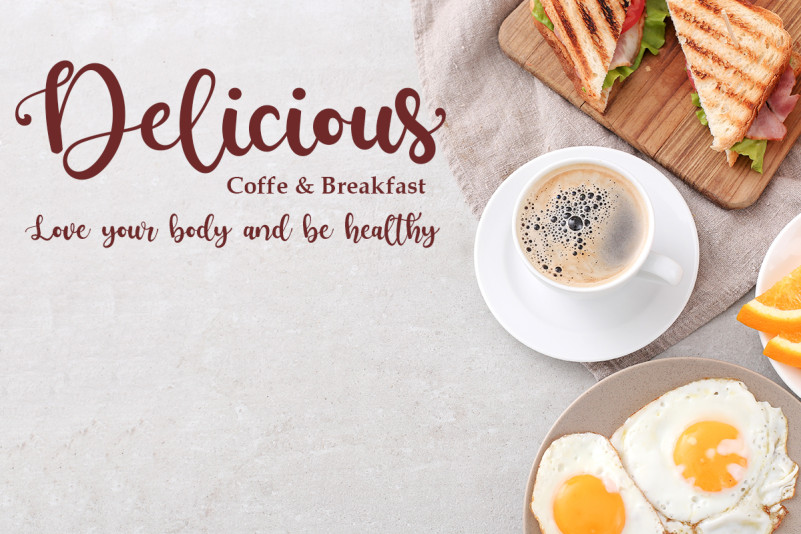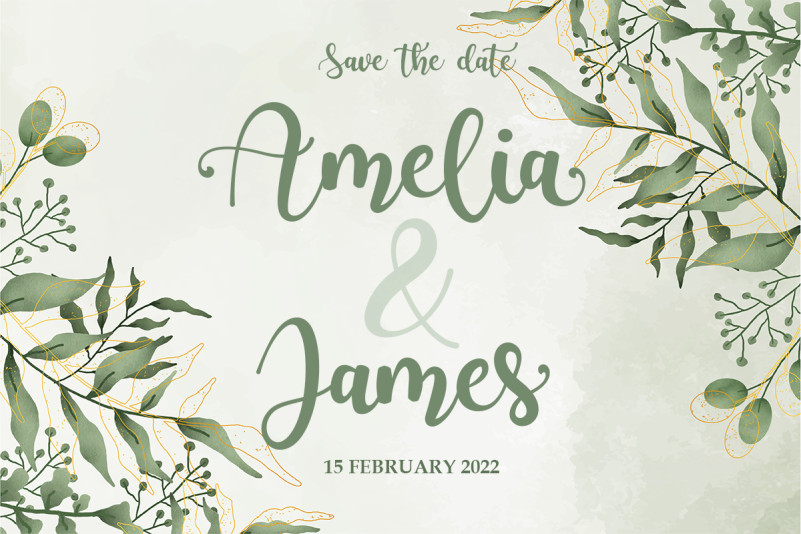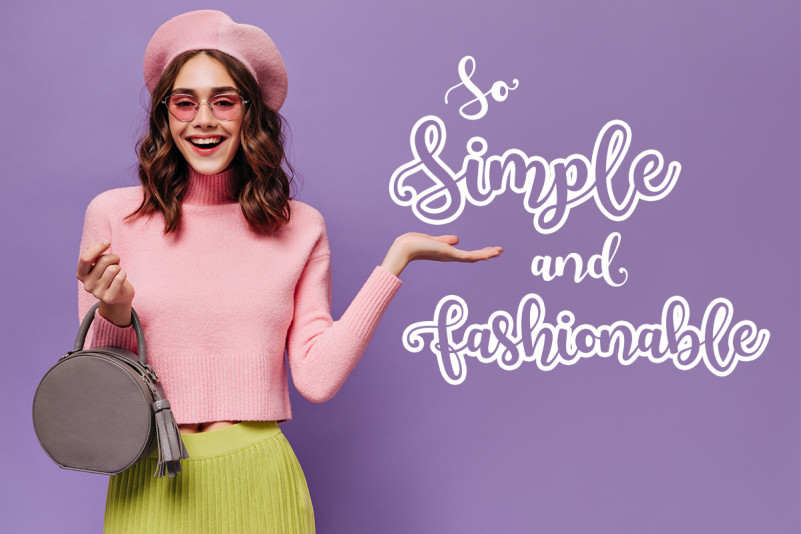
Beauty Sakura Font
Beauty Sakura Calligraphy Font is an elegant and modern handwritten font with a beautiful and luxurious feel. It is great for Instagram content designs or calligraphy scripts for DIY projects. This font is PUA encoded which means you can access all of the glyphs and swashes with ease!